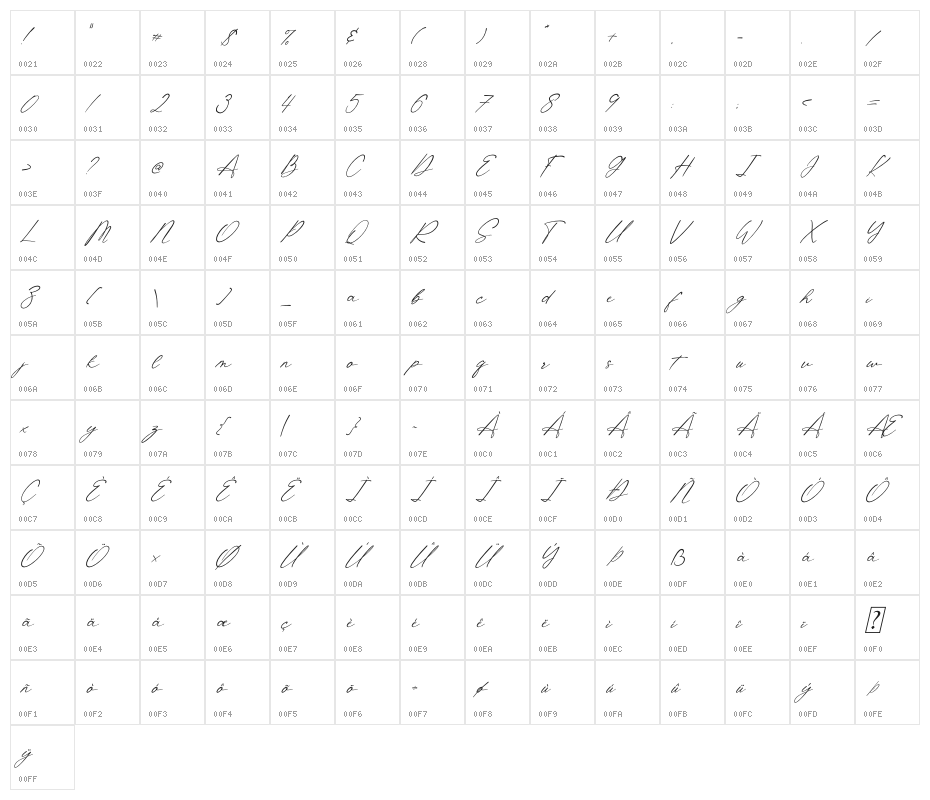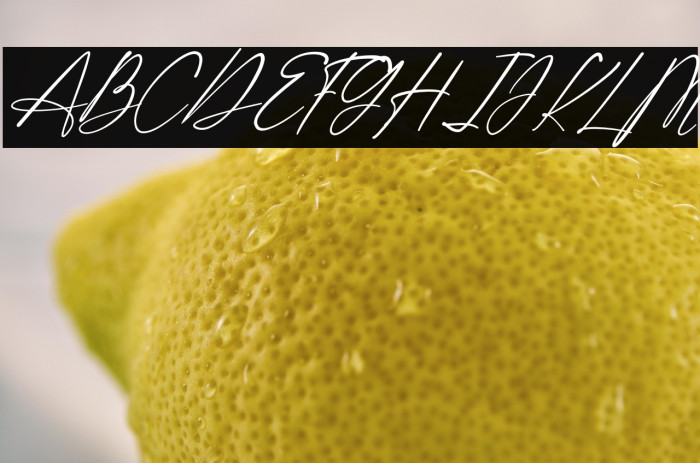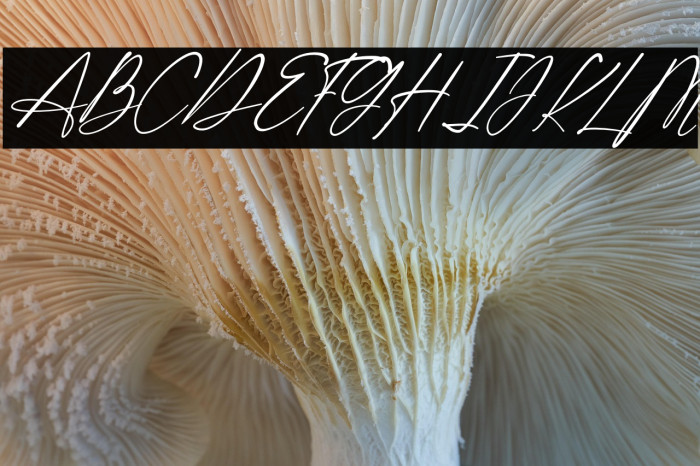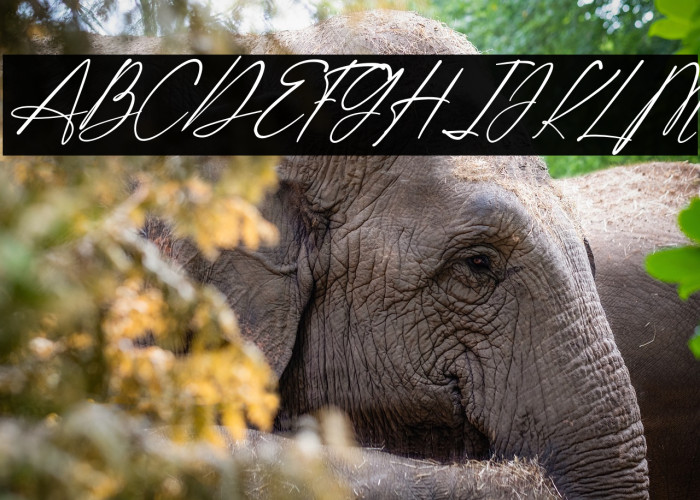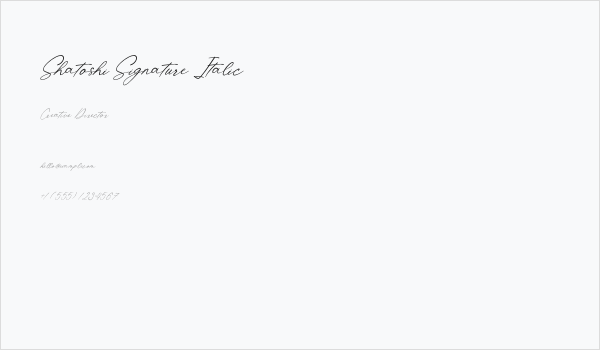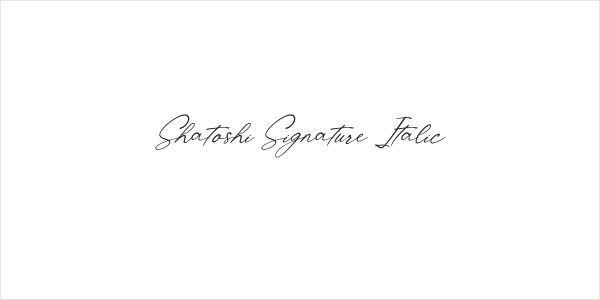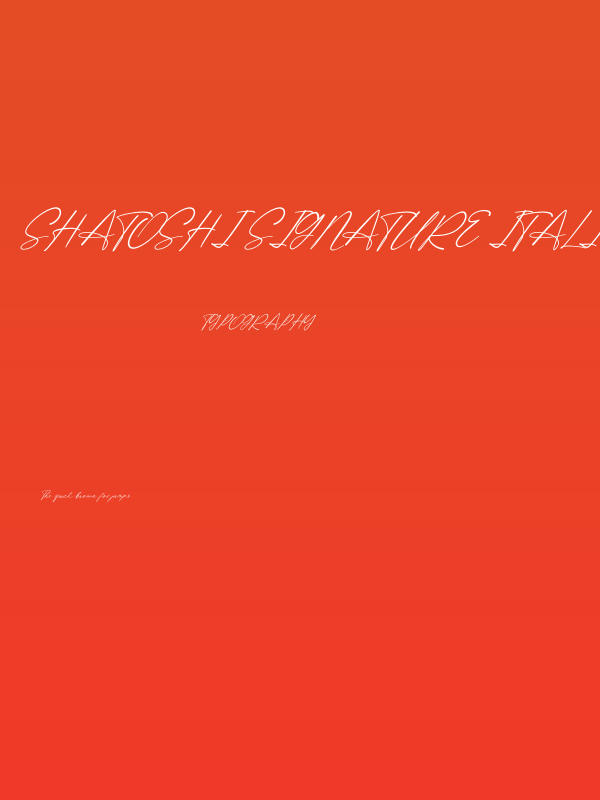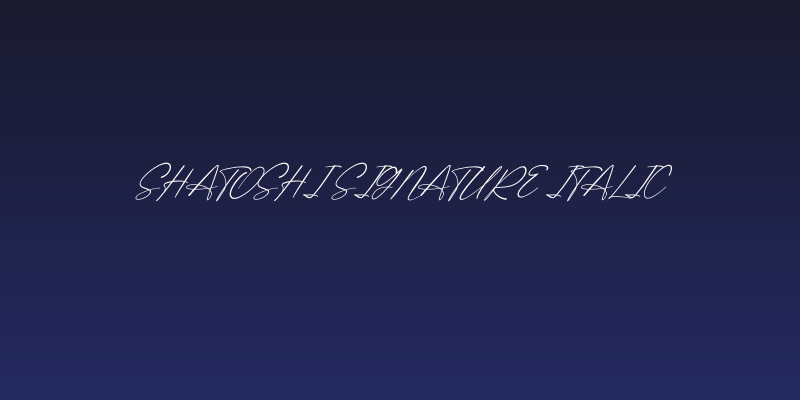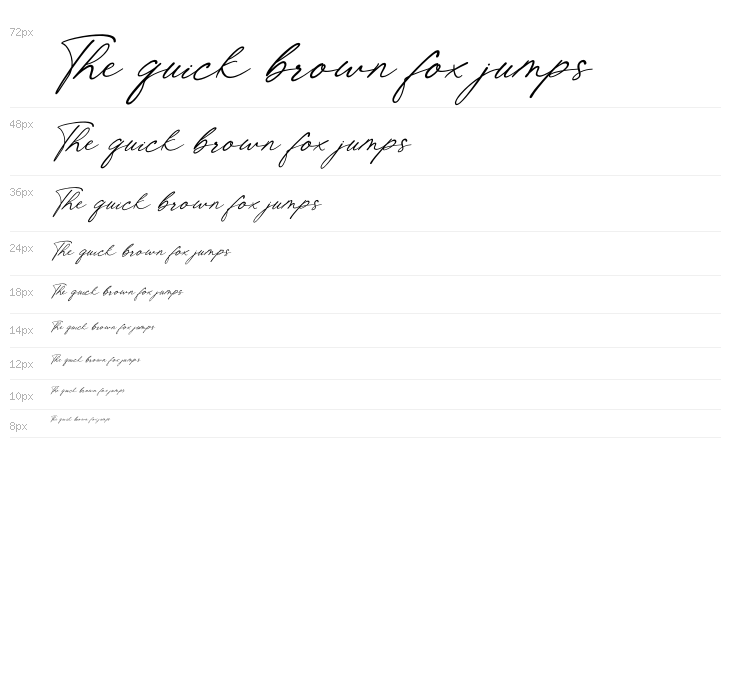
Shatoshi Signature Italic Font
Shatoshi Signature Italic Description
This font exudes elegance and sophistication with its flowing, cursive style. The characters are designed with a natural, handwritten appearance, featuring smooth curves and graceful loops. The uppercase letters are slightly more elaborate, with extended strokes that add a touch of flair. The lowercase letters maintain a consistent flow, making them highly legible while retaining a personal touch. Numbers and special characters are crafted to match the overall aesthetic, ensuring a cohesive look across all text. The italic slant enhances the dynamic feel, making it ideal for creative and expressive projects.
| Overall Style | Elegant, Handwritten |
| Proposed Projects | Ideal for wedding invitations, personal branding, elegant logos, and artistic projects. |